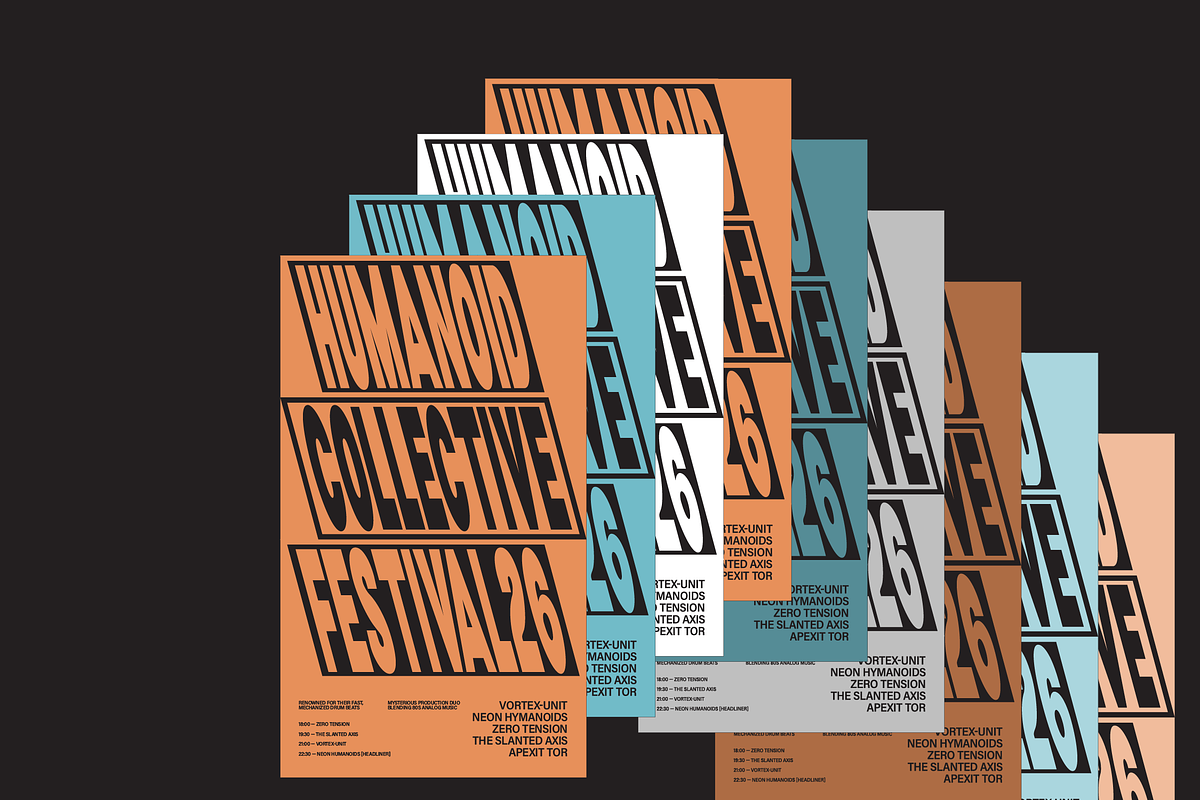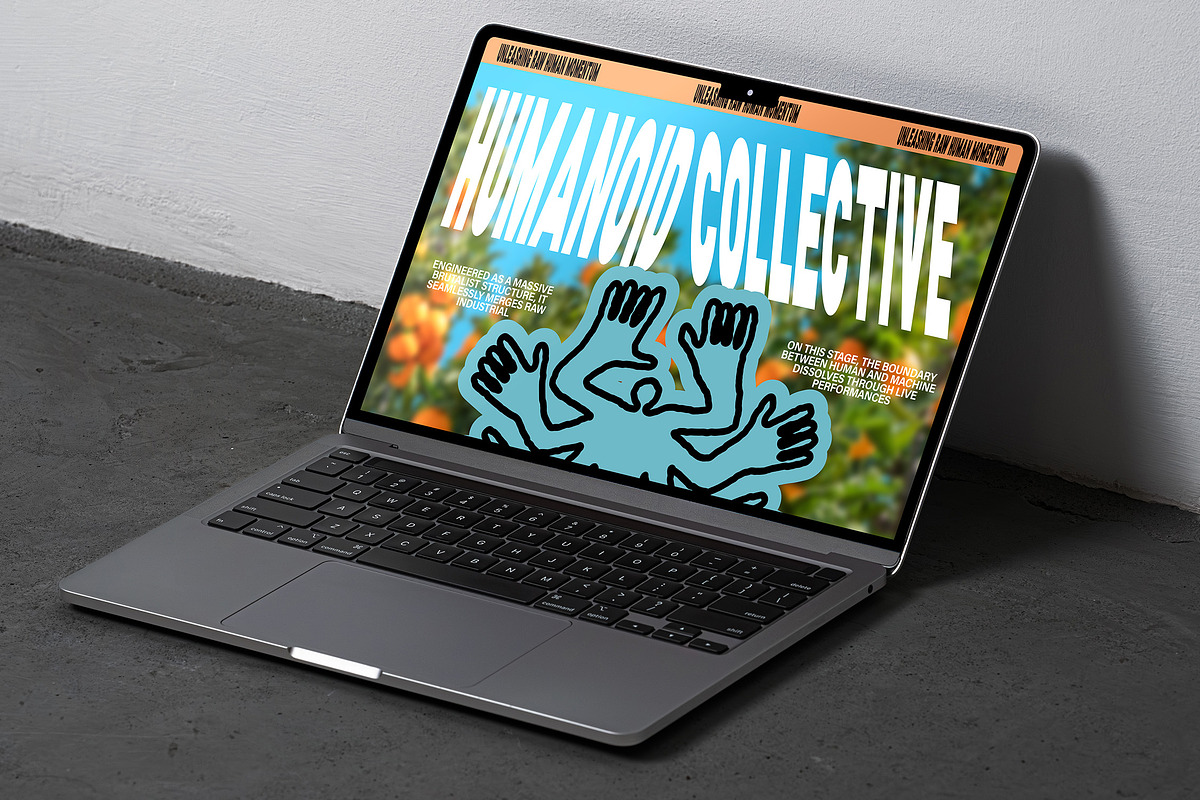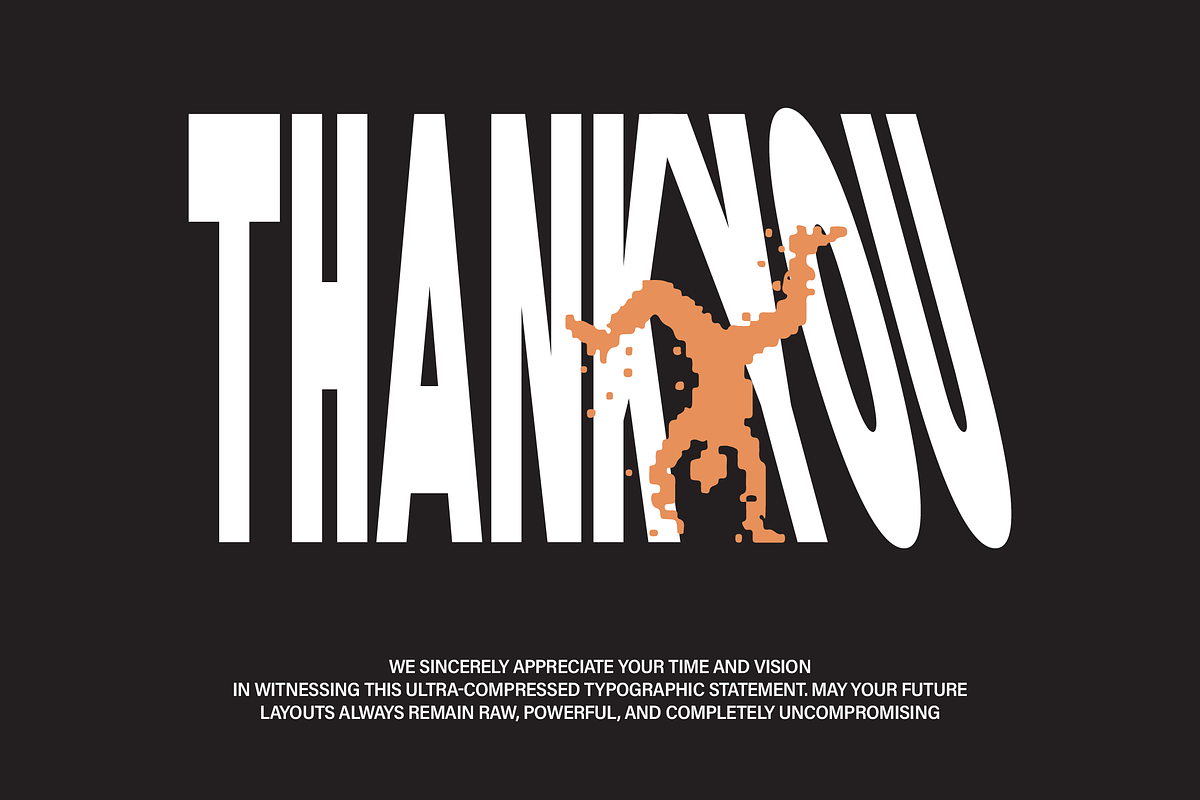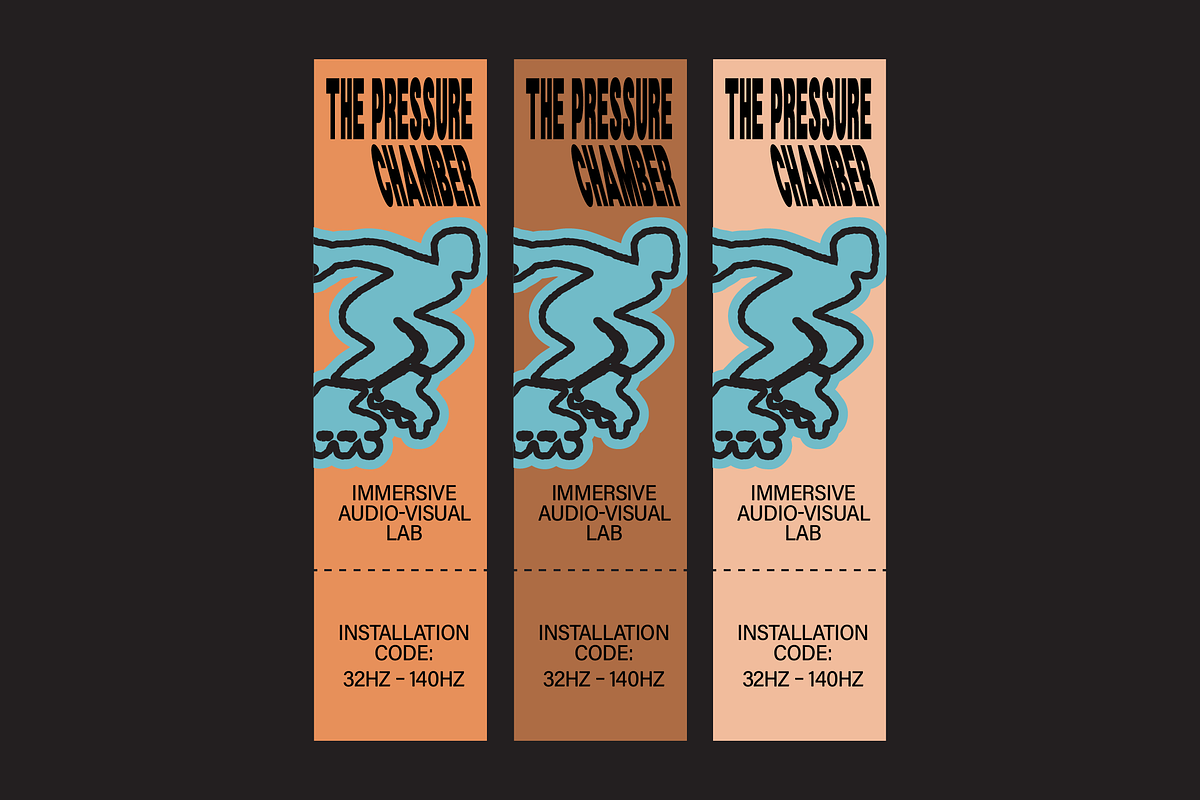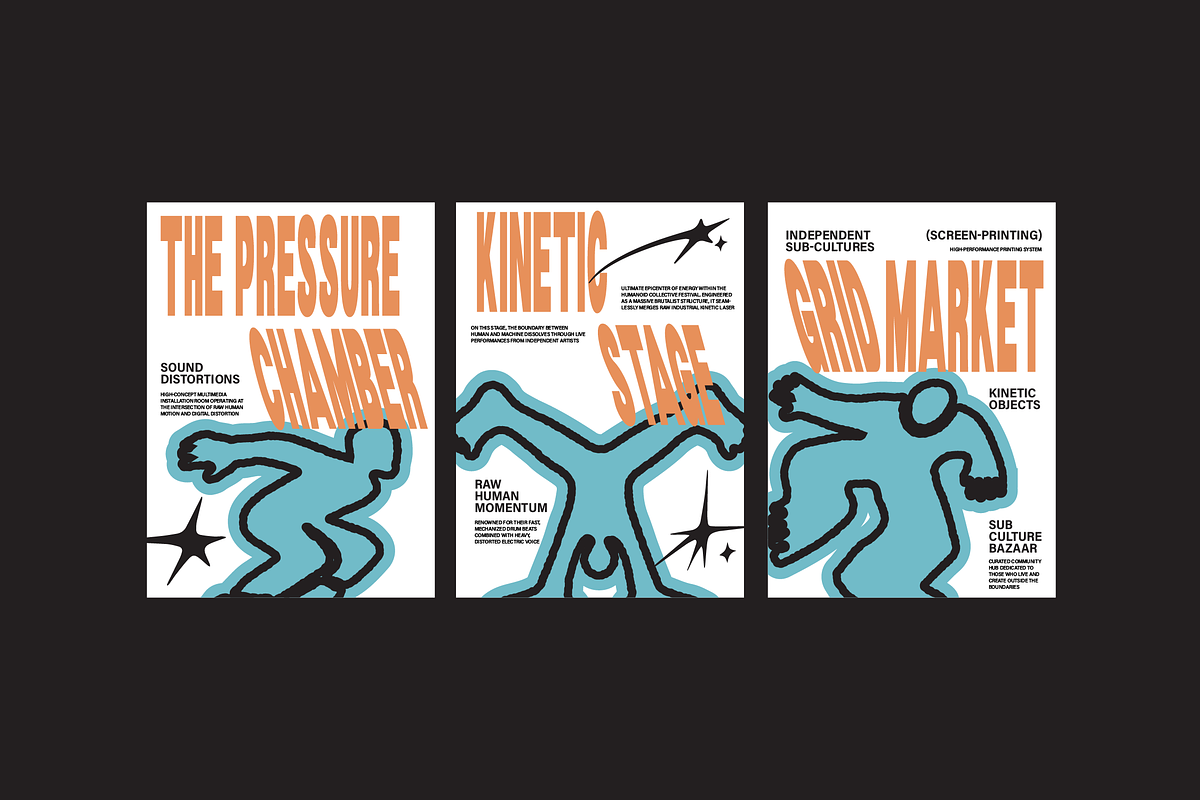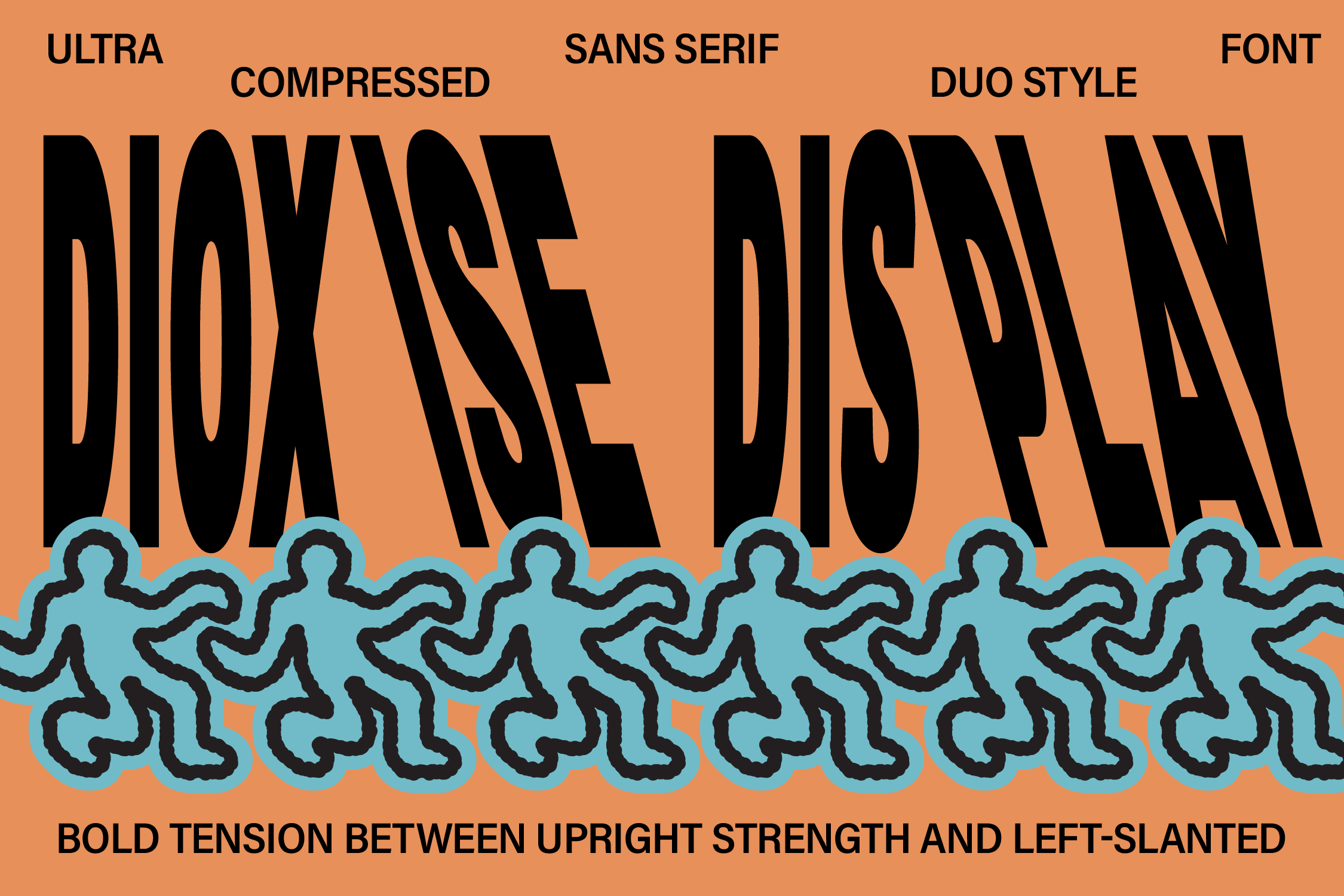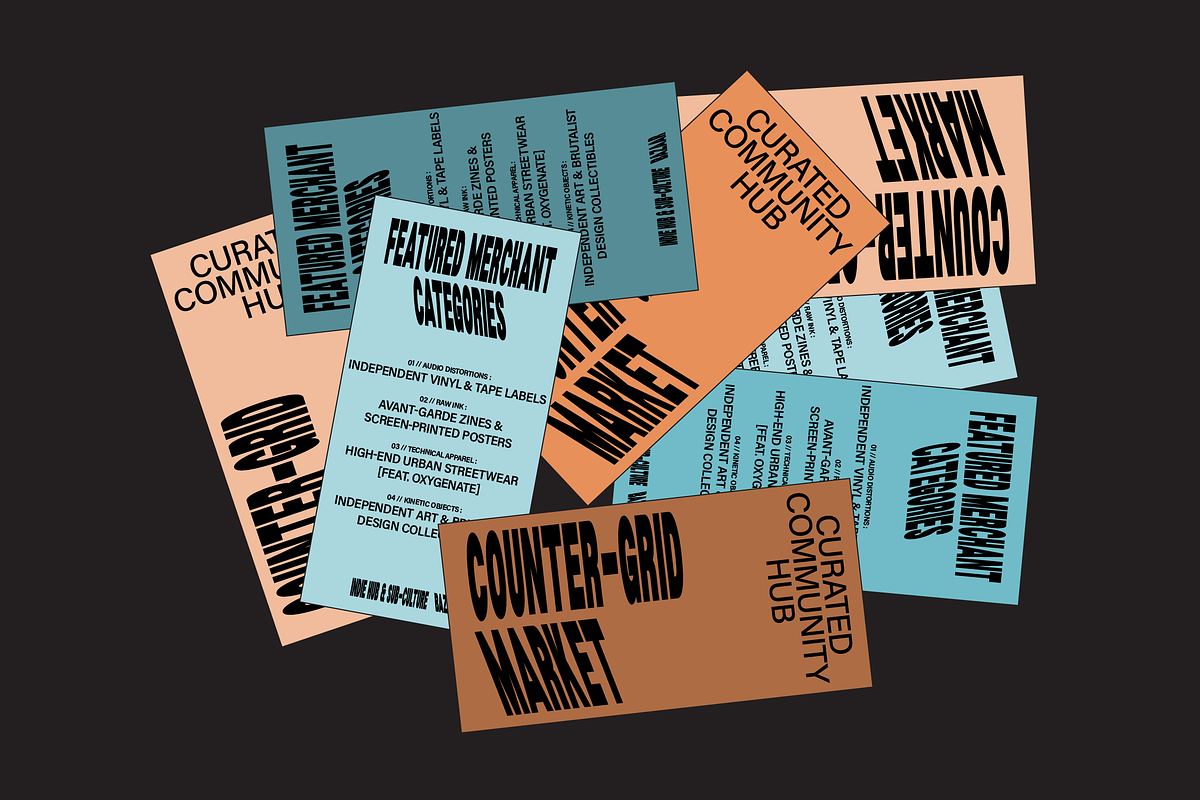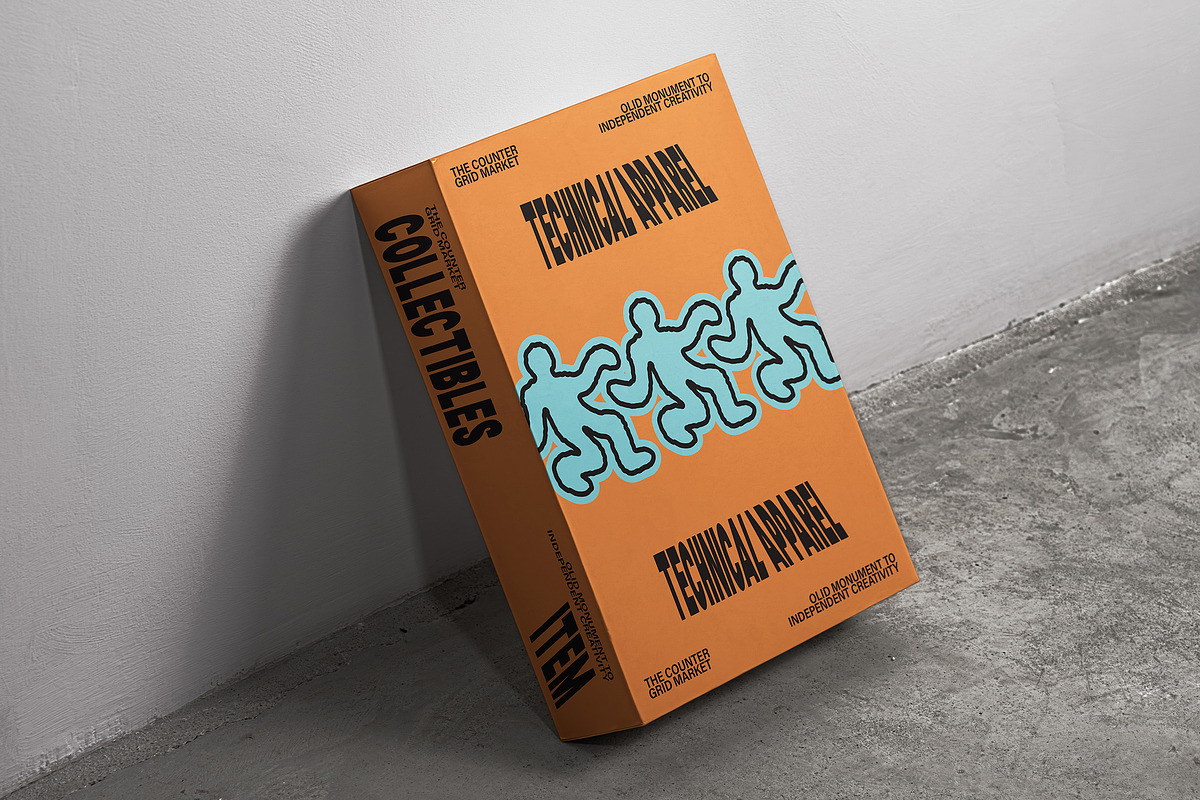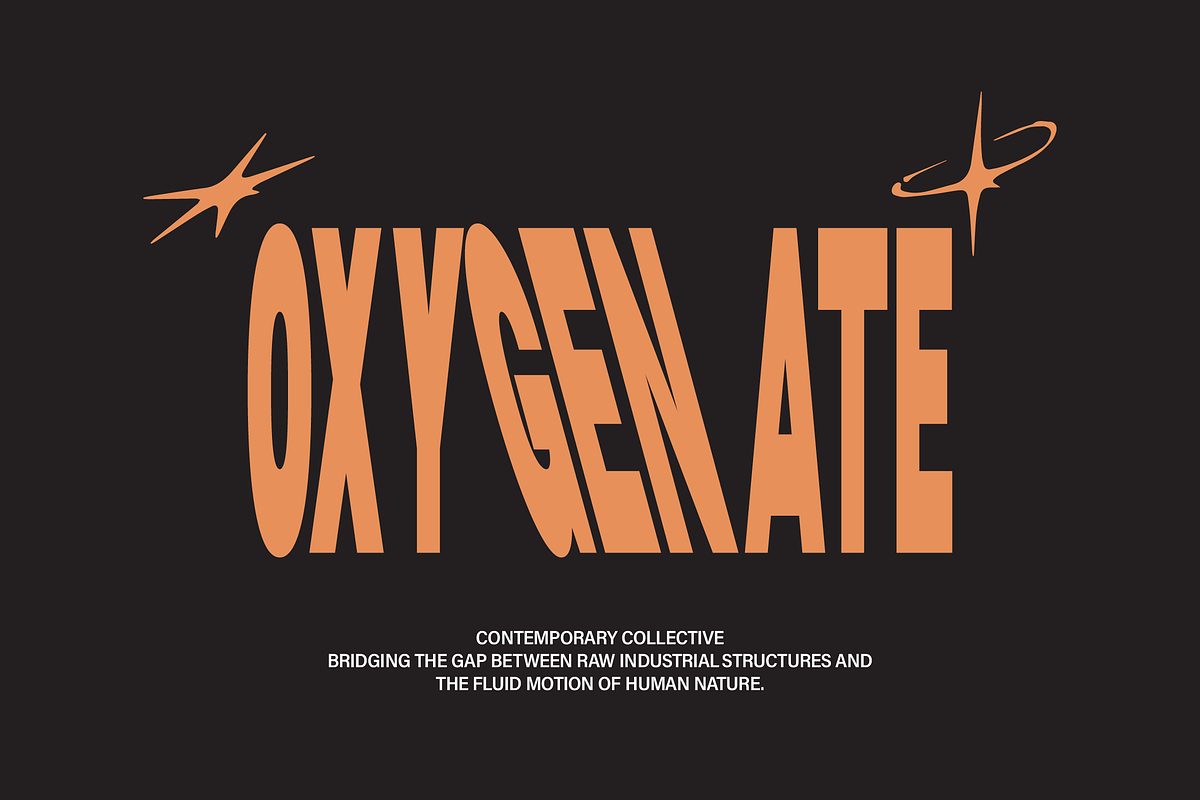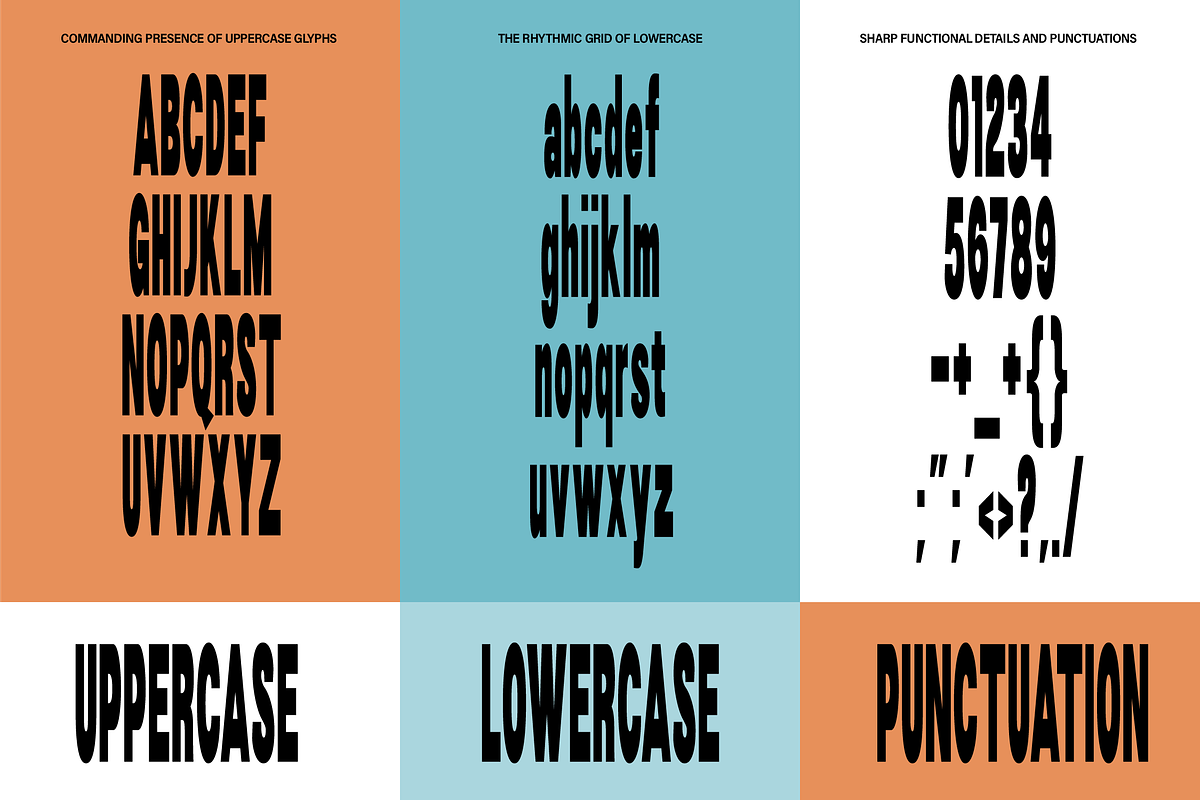
Dioxise Display Font Duo Style
Introduce DIOXISE, an ultra-compressed, high-contrast condensed sans-serif typeface engineered to dominate modern layouts. Built for maximum visual impact within minimal space, DIOXISE strips away the excess to deliver raw, commanding architectural energy. It is the ultimate typographic statement for brutalist designs, heavy editorial headlines, high-end technical apparel branding, and futuristic posters that refuse to be ignored.
DIOXISE comes with two distinct structural attitudes: a rock-solid Upright style for a monolith-like presence, and a radical Slanted style that aggressively leans to the left, cutting through traditional layout norms with unique counter-current momentum.
Streetwear & Avant-Garde Fashion Brands (like OXYGENATE)
High-Performance Urban Skincare & Packaging (like BIO-ELEMENTS)
Music Festivals, Gig Posters, & Sub-Culture Zines (like Humanoid Collective)
Bold Editorial Headlines & Brutalist Web Layouts